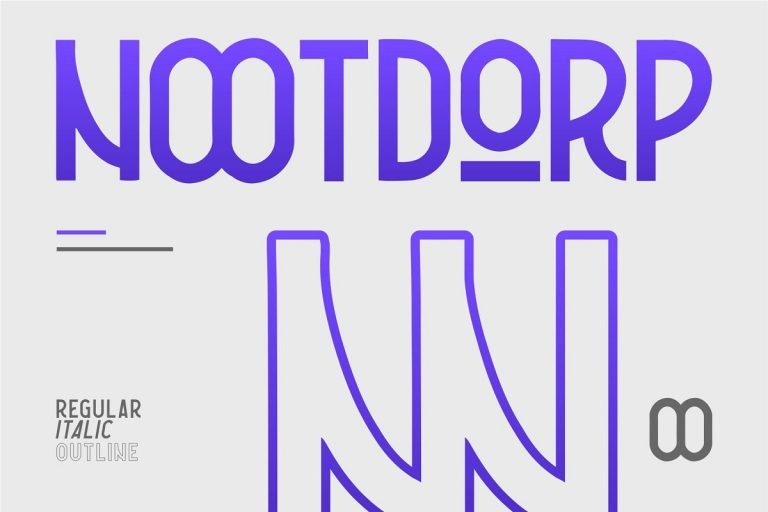
Nootdorp Typeface
This is a display type, inspired by classic advertisements and movie posters. It has a strong retro industrial/athletic vibe and works well for modern-vintage style designs. Introducing Nootdorp Font. Nootdorp Typeface, Inspired from modern sans and powerfull typeface is born Nootdorp. The name from one place on Germany: Nootdorp. This font very versatile for branding, label, packaging, logotype, website, header, headline, magazine, and many more the great work. Included on Nootdorp with 3 style: Regular, Italic, and Outline. So, very good for pairing the fonts!